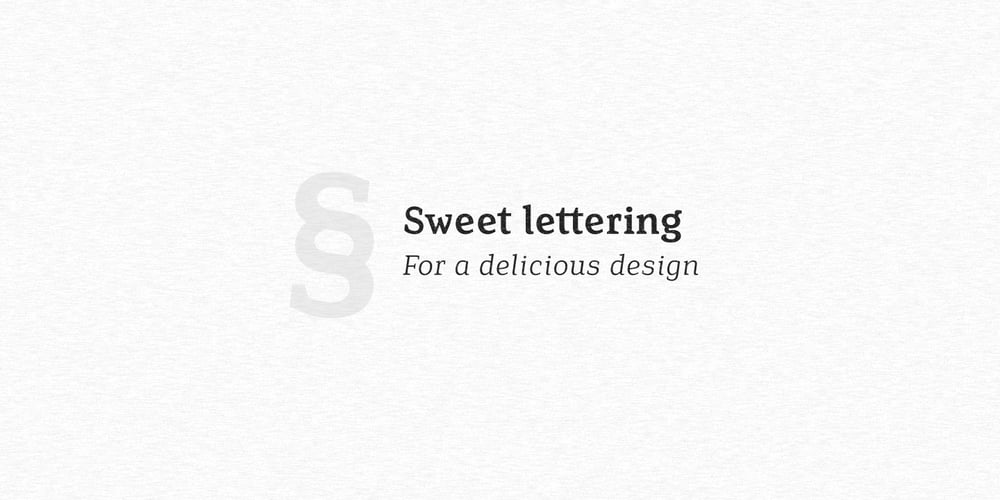
Isle Body Font Family was designed by Måns Grebäck and published by Mans Greback. Isle Body contains 8 styles and family package options. Isle Body is a high-quality serif typeface family, drawn by Måns Grebäck during 2018 and 2019. It is a sweet font with a casual and calm look, with generous spacing and an even weight, adapted for body texts and small sized type settings. It comes in four weights, each one as italic, totaling in eight styles: Light and Light Italic, Medium and Medium Italic, Bold and Bold Italic, Black and Black Italic. The font family can be used in a combination with a font of a different style, or together with its sister font Isle Headline, also a serif font, which has the same basic structure but more distinct weights and a sharper look. Each style contains ligatures and support for a wide range of languages.